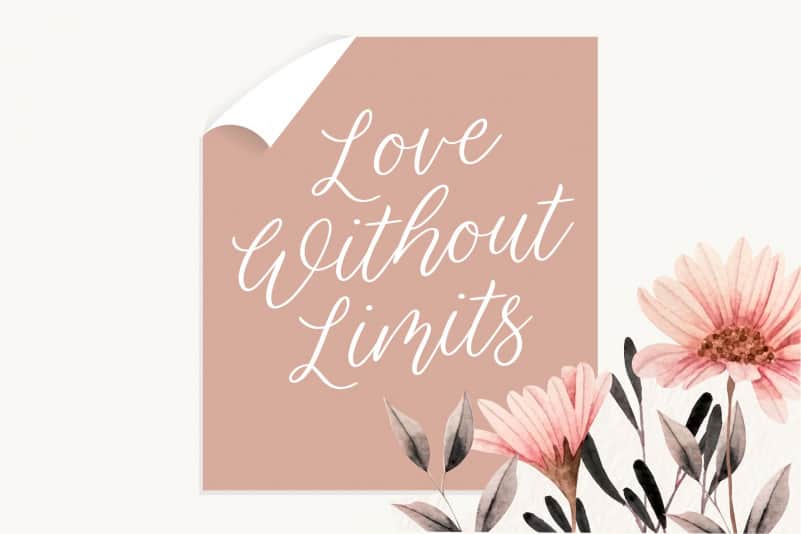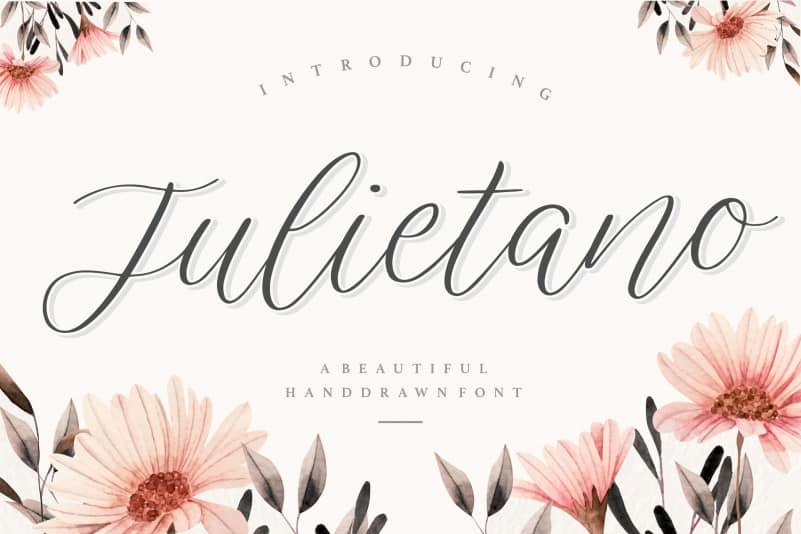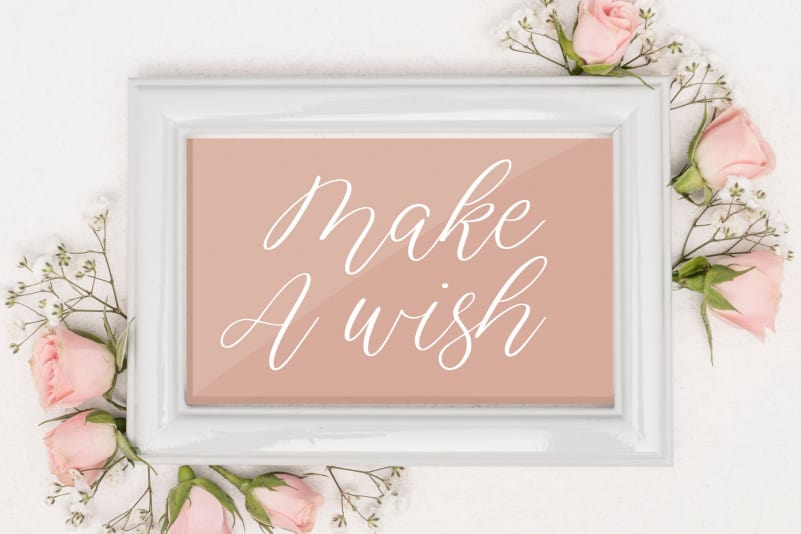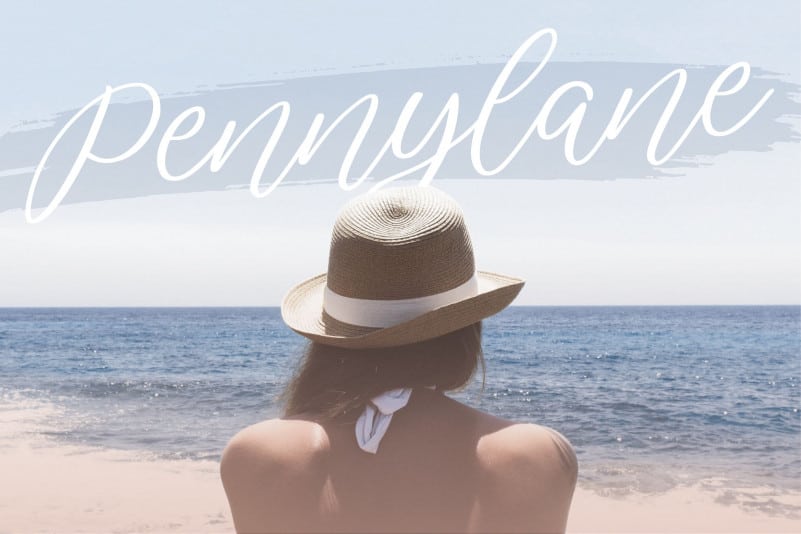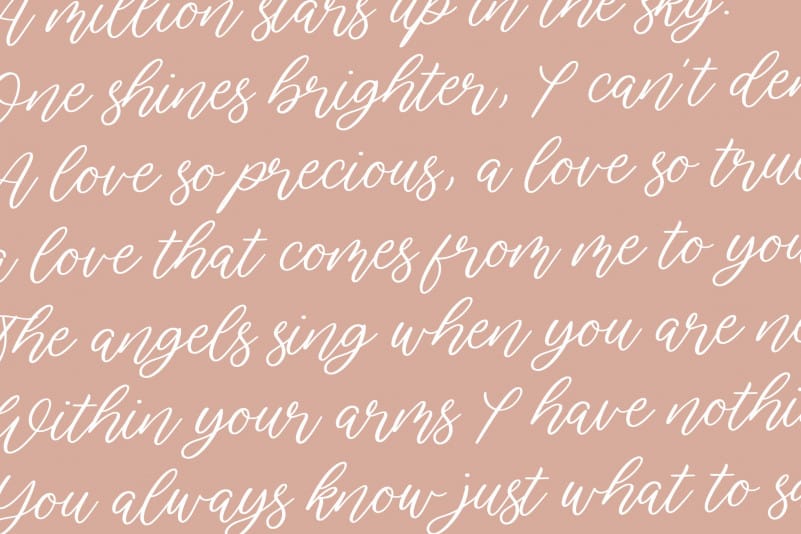
Julietano Handdraw Font
Proudly Present, Julietano Handdraw Font.
Julietano is a Beautiful Handdraw Font.
It is perfect for product packaging, branding project, megazine, social media, wedding, or just used to express words above the background.